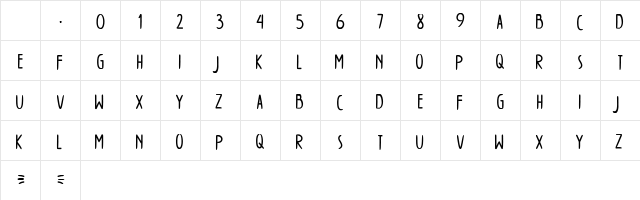
Complete WINTERTIME Regular glyph index. Displaying only characters natively supported by WINTERTIME Regular font.
WINTERTIME is a composed and adaptable typeface that performs quietly and consistently across a wide range of design contexts.